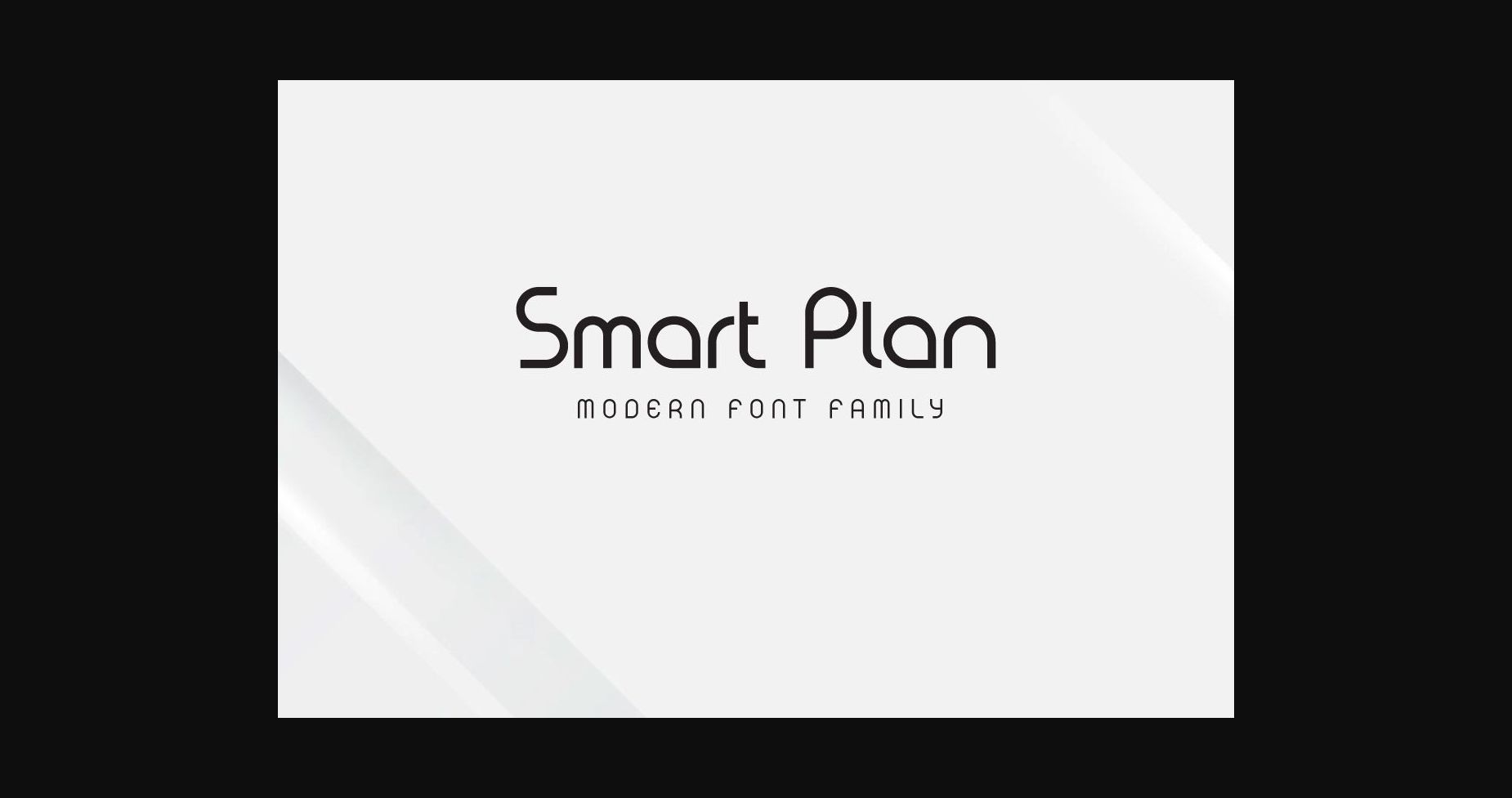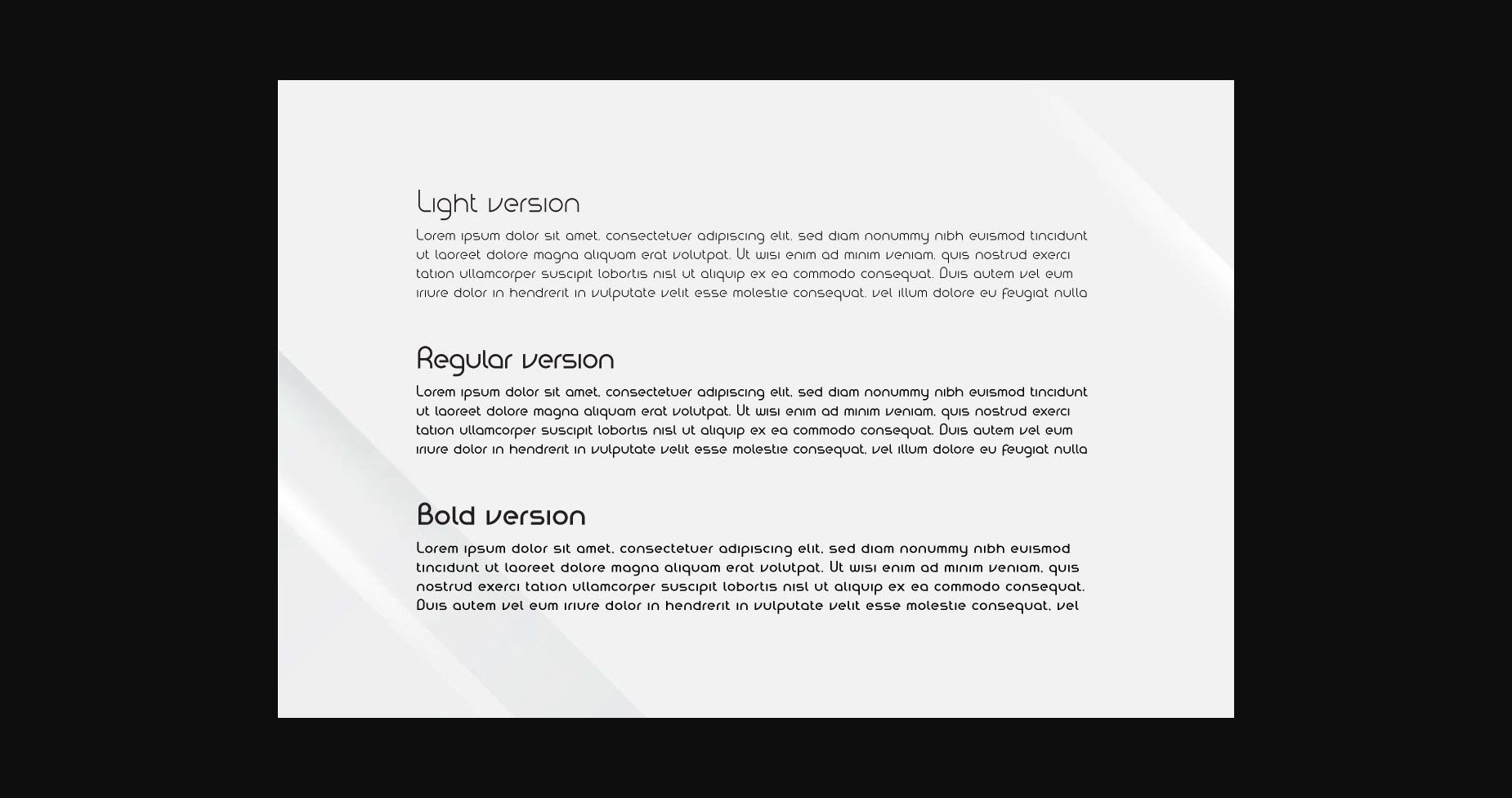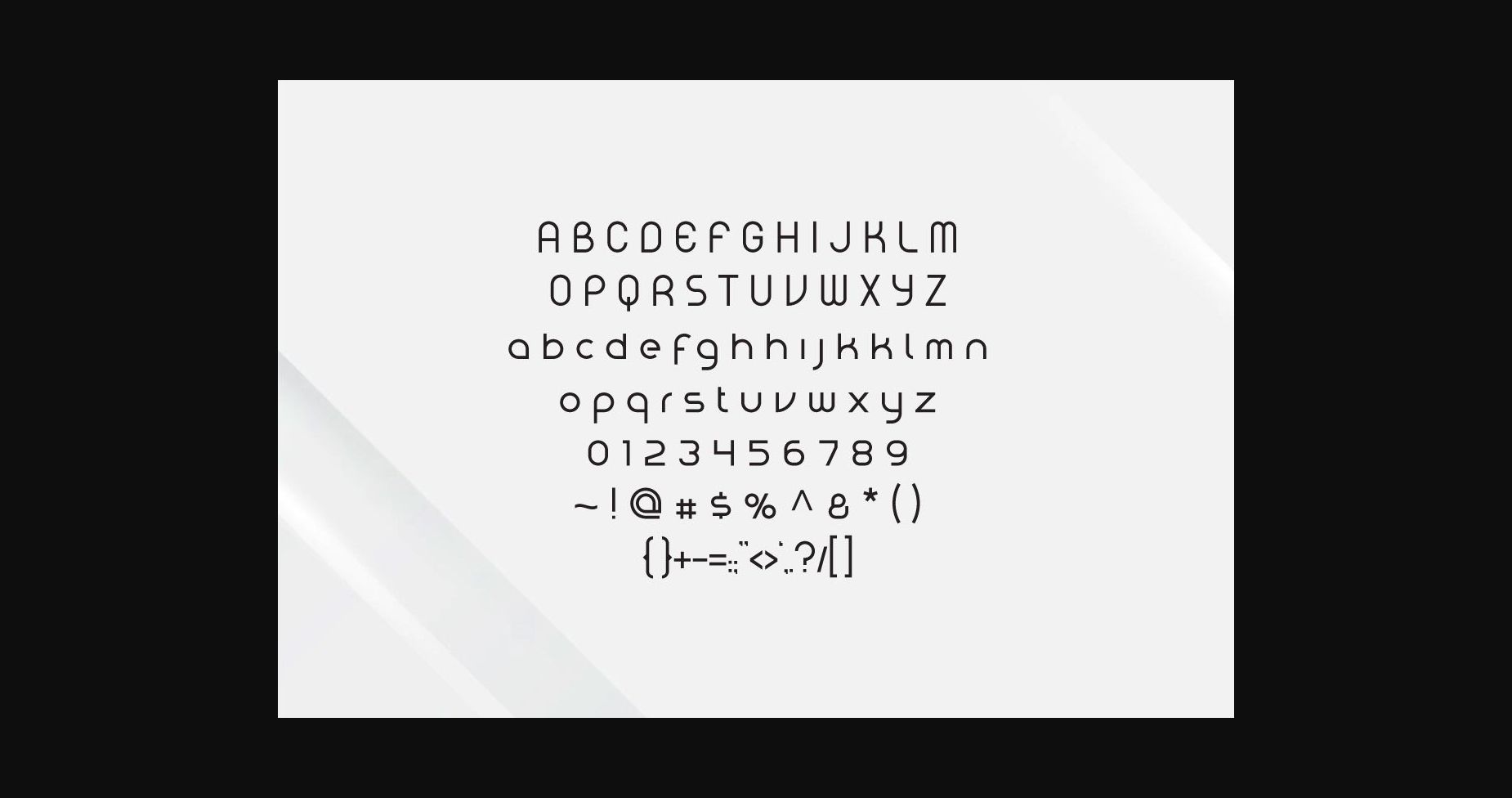
HomeSans Serif FontsSmart Plan Font Sans Serif Fonts Smart Plan Font FacebookTwitterPinterestWhatsApp 1 of 5 ... Smart Plan Font Poster 2... Smart Plan Font Poster 3... Smart Plan Font Poster 4... Smart Plan Font Poster 5... About Smart Plan Font Smart Plan is a clean and simple sans serif font. No matter the topic, this font will be an incredible asset to your fonts’ library, as it has the potential to elevate any creation. DOWNLOAD NOW People also explored Emperor Master Font Blankidea Font Olive Family Font Just Hello Font Sweet Pastel Font Orientypes Font Cherry Font Wildforest Font Whisky Family Font 240 0 TagsSmart Plan Font Previous articleBosman Rock FontNext articleFlowkey Font LEAVE A REPLY Cancel reply Comment: Please enter your comment! Name:* Please enter your name here Email:* You have entered an incorrect email address! Please enter your email address here Website: Save my name, email, and website in this browser for the next time I comment. Personal Use Free Special Day Personal Use Free Read more about this font Jellia Personal Use Free Read more about this font Lanilla Personal Use Free Read more about this font Victorian Ornaments Personal Use Free Read more about this font BLOG Using Fonts in Digital Marketing: Tips to Strengthen Your Brand Identity In the realm of digital marketing, every visual element plays a crucial role in shaping a brand's identity, and fonts are no exception. The... Elegant Wedding Invitation Fonts – Handwritten & Script Fonts Free vs Paid Fonts: Why Investing in Premium Fonts Is Worth It Best Fonts for YouTube Videos: Make Your Thumbnails Stand Out